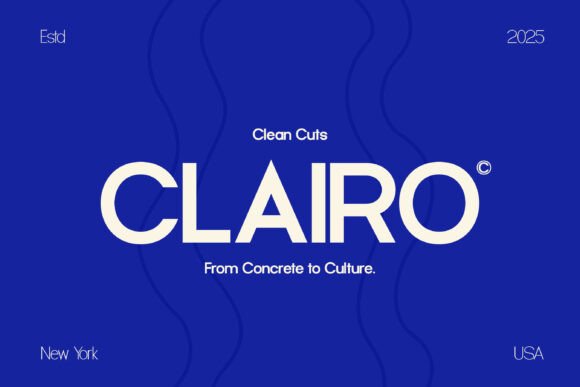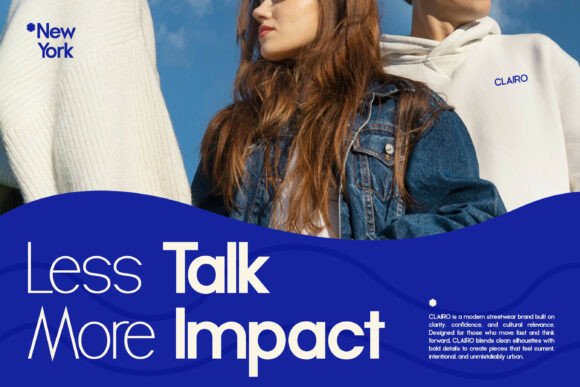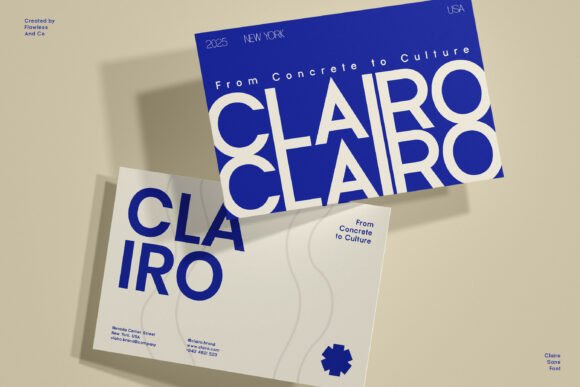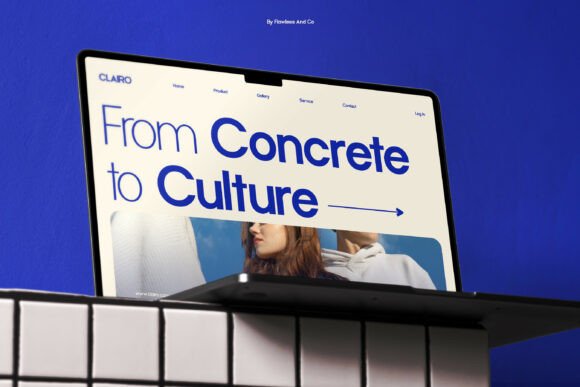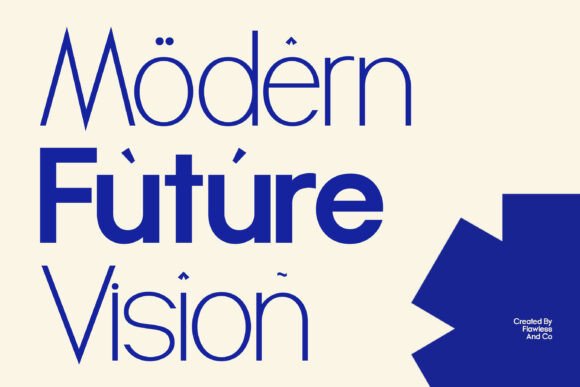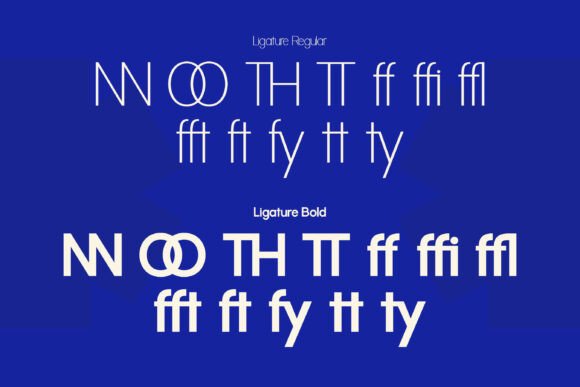
Introduction to Clairo Sans Font Font
Fonts play a crucial role in design, and the Clairo Sans Font font is a typeface that brings both character and versatility to any project. Whether you’re working on a branding project, a website, or a print design, the Clairo Sans Font font offers a unique style that can elevate your work.
Clairo Sans is a clean and modern sans serif font designed to deliver clarity, balance, and versatility.
With its bold structure and minimal aesthetic, Clairo Sans works perfectly for contemporary designs that require a strong yet approachable visual presence It comes with Regular and Bold styles, making it flexible for various design needs.
Key Features of Clairo Sans Font Font
Why Choose Clairo Sans Font Font?
The Clairo Sans Font font is more than just a typeface – it’s a design tool that helps you communicate your message with style and clarity. Its unique character set and versatile design make it suitable for a wide range of applications, from elegant invitations to bold headlines.
With its carefully crafted letterforms and balanced proportions, the Clairo Sans Font font ensures readability and visual appeal across all mediums.
What makes Clairo Sans Font font special?
The Clairo Sans Font font stands out with its unique design, exceptional readability, and versatility across various design applications.